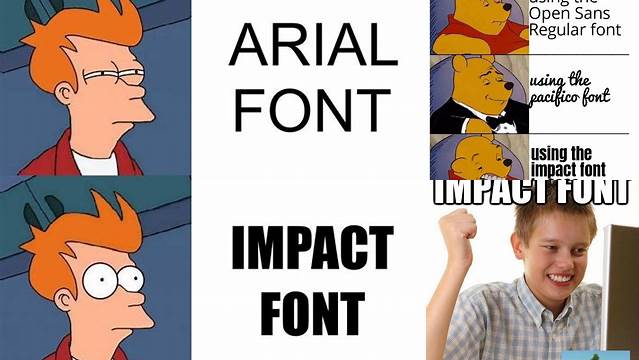
Impact Font Memes: The Enduring Legacy
The Rise of Impact Font in Memes
Alright, guys, let's dive into the wonderful world of Impact font memes! This font, with its bold, blocky letters, has become synonymous with internet humor. But how did it all start? The Impact font, initially designed for print, found its way onto the internet and quickly became the go-to choice for adding text to images. Its readability and visual punch made it perfect for conveying jokes and witty captions. Early meme creators loved it because it was readily available on most computers, making it easy to create and share content. Think of the classic Advice Animals – Overly Attached Girlfriend, Bad Luck Brian, Success Kid – all rocking the Impact font. The simplicity and clarity of the font allowed the humor to shine through, making it a staple in internet culture. Its widespread use also created a sense of familiarity and recognition, so whenever you saw that bold white text with the black outline, you knew you were about to see something funny. It's a testament to how a simple design choice can become deeply ingrained in our online experiences.
Why Impact Font Became a Meme Standard
So, why Impact font? What made it the king of meme fonts? Well, there are several reasons. First off, its bold and uppercase letters demand attention. In the fast-paced world of the internet, where content is constantly vying for your eyeballs, Impact cuts through the noise. It's like the font is shouting, "Hey, look at this! It's funny!" Plus, the ability to add a contrasting black outline made the text pop even more, ensuring readability on any image. The accessibility of Impact font also played a huge role. It came pre-installed on many operating systems, meaning anyone could easily create memes without needing special software or fonts. This democratic aspect of meme creation fueled its popularity. And let's not forget the cultural impact. As more and more memes used Impact, it became a visual shorthand for internet humor. Seeing Impact font instantly signaled to viewers that the image was meant to be funny, creating a sense of shared understanding and inside jokes. The font itself became part of the meme, an instantly recognizable symbol of internet culture. So, in essence, Impact font became a meme standard because it was bold, readable, accessible, and culturally significant.
The Evolution of Impact Font in Internet Culture
Over the years, the use of Impact font in memes has evolved, but its place in internet culture remains strong. Initially, it was used in a very straightforward way – top and bottom text on images. Classic, right? But as meme culture matured, so did the ways Impact font was used. People started experimenting with different layouts, adding more creative text placements, and even playing with the font's appearance. We saw Impact used ironically, in memes that subverted the typical format. We saw it paired with unexpected images to create surreal and absurd humor. There were even memes that made fun of the overuse of Impact font itself, which is pretty meta if you think about it! This evolution shows the dynamic nature of internet culture. Memes aren't static; they change and adapt, and the tools we use to create them, like Impact font, evolve along with them. Despite the rise of other fonts and meme formats, Impact continues to pop up, often used intentionally for its nostalgic value or to evoke a specific type of meme humor. It's a reminder of the early days of internet memes, a visual echo of a simpler time online. The enduring legacy of Impact font in memes is a testament to its adaptability and its deep connection to internet culture.
Impact Font vs. Other Meme Fonts
Let's be real, Impact font isn't the only font out there trying to make it in the meme world, but it definitely holds a special place in our hearts (and our funny bones). While Impact was the OG meme font, other contenders have entered the arena, each with its own vibe. Arial, for instance, tried to be the cool, modern alternative, but it never quite captured the same magic. Then there's Comic Sans, which, let's be honest, is more likely to elicit groans than giggles (unless it's being used ironically, of course). So, what makes Impact stand out? Well, it's all about that bold, no-nonsense look. It's direct, it's clear, and it gets the point across. Other fonts might be fancier or more stylish, but Impact is the font equivalent of a solid, reliable friend who always makes you laugh. It's also about the history. Impact is associated with the golden age of memes, a time when Advice Animals ruled the internet and LOLcats were the kings of comedy. That nostalgic connection gives Impact a certain cachet that other fonts just can't match. While other fonts might come and go, Impact remains a constant, a reminder of the roots of internet humor. It’s like the classic rock of meme fonts – always relevant, always recognizable, and always good for a laugh.
The Psychology Behind Impact Font's Meme Appeal
Ever wondered why Impact font just works for memes? There's actually some psychology behind it! Our brains are wired to notice things that stand out, and Impact, with its bold, uppercase letters, definitely grabs attention. It's like the font is shouting, "Pay attention to me!" This visual prominence is crucial in the fast-paced world of the internet, where content is constantly competing for our limited attention spans. The simplicity of Impact also plays a role. It's a clean, straightforward font that's easy to read, even at a glance. This is important because memes are often consumed quickly, and a font that's hard to decipher can kill the joke. But it's not just about readability; it's also about the emotional impact. The bold, assertive nature of Impact font conveys a sense of confidence and humor. It's like the font is saying, "This is funny, and I'm not afraid to show it!" This confidence can be contagious, making us more likely to find the meme funny. And let's not forget the power of association. Because Impact has been used in so many memes, it's become a visual cue for humor. When we see Impact font, we automatically associate it with funny content, which primes us to laugh. So, in a way, Impact font is like a visual trigger for humor, tapping into our psychological responses to make memes even funnier.
Creating Your Own Memes with Impact Font
Okay, guys, feeling inspired? Ready to create your own Impact font meme masterpieces? It's easier than you think! First, you'll need an image. It could be a photo, a screenshot, a drawing – anything that sparks your creativity. Next, you'll need a meme generator. There are tons of free online tools that make it super easy to add text to images. Just search for "meme generator" and you'll find plenty of options. Once you're in the generator, upload your image and select Impact font. This is where the magic happens! Now, think about your caption. The key is to be witty, concise, and relevant to the image. Classic meme captions often follow a simple formula: a setup at the top and a punchline at the bottom. But don't be afraid to experiment! Try different placements, different sizes, and even different colors (though white with a black outline is the traditional Impact font look). The most important thing is to make sure your text is readable and that it adds to the humor of the image. Remember, a great caption can transform an ordinary image into a viral sensation. And don't forget to share your creations! Post them on social media, send them to your friends, and spread the laughter. With Impact font and a little creativity, you can become a meme master in no time!
The Future of Impact Font in the Meme World
So, what's the future hold for Impact font in the meme world? Will it continue to reign supreme, or will it eventually fade into internet obscurity? Well, predicting the future of memes is a bit like predicting the weather – it's always subject to change! But there are a few factors that suggest Impact font will stick around for a while. First, there's the nostalgia factor. Impact is associated with the early days of internet memes, a time that many internet users look back on fondly. This nostalgia gives Impact a certain staying power, a kind of vintage cool that other fonts can't match. Second, there's the practicality factor. Impact is still one of the most readable fonts for memes, and in the fast-paced world of the internet, readability is key. Third, there's the irony factor. In recent years, we've seen a resurgence of Impact font in ironic memes, where the font is used deliberately to evoke a sense of outdated humor. This self-awareness keeps Impact relevant, even as meme culture evolves. Of course, the meme world is constantly changing, and new trends and formats emerge all the time. But Impact font has proven its resilience over the years, and it wouldn't be surprising to see it continue to pop up in memes for years to come. It's like the little black dress of meme fonts – always in style, always appropriate, and always ready to make you laugh.
The Controversies Surrounding Impact Font
Believe it or not, even something as seemingly innocuous as Impact font has faced its share of controversies. I know, right? Who knew a font could be so divisive? But the truth is, Impact's widespread use in memes has led to some debates about its artistic merit and its cultural impact. One of the main criticisms of Impact font is that it's overused and unoriginal. Some people argue that its ubiquity in memes has made it a cliché, a tired visual trope that lacks creativity. They believe that using Impact font is a sign of laziness, a way to create a meme without putting in any real effort. Another controversy surrounding Impact font is its association with certain types of humor. Because it's so closely linked to the classic Advice Animal memes, some people see Impact font as representing a particular style of internet humor that they find juvenile or outdated. They argue that using Impact font is like clinging to the past, a refusal to embrace new forms of online comedy. Of course, these controversies are largely a matter of personal opinion. There's no right or wrong answer when it comes to font choices in memes. But it's interesting to consider how something as simple as a font can spark so much debate and discussion. It just goes to show how deeply ingrained memes are in our culture, and how seriously we take our internet humor.
Impact Font and its Impact on Branding
While Impact font is most famously associated with memes, its bold and attention-grabbing nature has also made it a popular choice for branding and advertising. Think about it – a font that can make a meme go viral is bound to have some appeal in the world of marketing, right? Many companies have used Impact font in their logos, their slogans, and their advertising materials, hoping to capture some of that same visual punch. Its bold, uppercase letters convey a sense of strength and confidence, making it a good fit for brands that want to project a powerful image. The readability of Impact font is also a major selling point. In the cluttered landscape of advertising, a font that can be easily read at a glance is a valuable asset. But using Impact font for branding can also be a risky move. Because it's so closely associated with memes, there's a danger that it could make a brand seem unserious or even cheesy. Companies have to carefully consider their target audience and their overall brand image before deciding to use Impact font in their marketing. In some cases, the association with memes can be a positive thing, giving a brand a sense of playfulness and internet savvy. But in other cases, it could be a turnoff, making a brand seem out of touch or even unprofessional. It's a delicate balancing act, and it requires a keen understanding of both font psychology and internet culture.
Impact Font's Role in Internet History
Let's take a trip down memory lane, guys, and talk about Impact font's role in internet history. This font isn't just a set of letters; it's a symbol of a certain era of the internet, a time when memes were simpler, and the online world felt a little bit more wild and unpredictable. Impact font was there at the beginning of the meme explosion, gracing the captions of countless Advice Animals, rage comics, and image macros. It was the font of choice for LOLcats, for Overly Attached Girlfriend, for Bad Luck Brian – all the classic memes that defined early internet humor. Its ubiquity during this period cemented its place in internet history. Impact font became a visual shorthand for memes, a signal that you were about to see something funny. Seeing those bold, white letters with the black outline instantly transported you back to the golden age of internet humor. But Impact font's role in internet history goes beyond just memes. It was also a popular font for websites, forums, and online communities. Its readability and its bold presence made it a good choice for headings, titles, and other important text elements. Impact font was a part of the visual language of the early internet, a font that helped shape the online world we know today. So, when you see Impact font, remember that you're not just seeing a set of letters; you're seeing a piece of internet history.
The Use of Impact Font in Parody and Satire
One of the coolest things about Impact font is its versatility. It's not just for straightforward memes; it's also a fantastic tool for parody and satire. The font's inherent boldness and seriousness, combined with its association with internet humor, make it perfect for subverting expectations and creating ironic effects. Think about it: a serious message delivered in Impact font instantly becomes less serious, more playful, and often, downright hilarious. This is why Impact font is often used in memes that poke fun at serious topics, or that satirize the conventions of meme culture itself. We see Impact font used ironically, in memes that deliberately misinterpret images or that use nonsensical captions. We see it used self-referentially, in memes that comment on the overuse of Impact font itself. And we see it used in political satire, to lampoon politicians and their policies. The key to using Impact font effectively in parody and satire is to understand its cultural baggage. The font carries with it a history of internet humor, a set of associations that can be exploited for comedic effect. By playing with those associations, by subverting expectations, and by using Impact font in unexpected ways, you can create memes that are both funny and thought-provoking. It's a testament to the font's enduring power that it can be used for so many different purposes, from straightforward jokes to complex social commentary.
Impact Font in Different Languages and Cultures
Okay, let's talk about Impact font around the world! While it's undeniably a staple of English-language memes, its influence extends far beyond the English-speaking internet. Memes are a global phenomenon, and Impact font has traveled along with them, popping up in different languages and cultures around the world. Of course, the way Impact font is used can vary depending on the cultural context. In some cultures, the classic top-and-bottom text format is still the norm. In others, meme creators have adapted the format to suit their own languages and humor styles. For example, you might see Impact font used with different text alignments, different text sizes, or even different colors. The meaning of Impact font can also vary across cultures. While it's generally associated with humor, its specific connotations might differ. In some cultures, it might be seen as more playful and lighthearted. In others, it might carry a stronger sense of irony or sarcasm. The globalization of memes has led to some interesting cross-cultural exchanges. Memes that originate in one culture can be translated and adapted for use in others, often with Impact font as the common thread. This allows for a shared sense of humor and a sense of connection across linguistic and cultural boundaries. It's a reminder that even something as simple as a font can play a role in fostering global communication and understanding.
Impact Font and its Accessibility Considerations
Hey guys, let's have a chat about something super important: accessibility. When we're making memes, it's crucial to think about how accessible they are to everyone, including people with disabilities. And guess what? Impact font, while iconic, isn't always the most accessible choice. For folks with visual impairments, the bold, condensed nature of Impact can actually make it harder to read. The letters can blur together, especially at smaller sizes, which can be frustrating and even exclusionary. So, what can we do? Well, there are a few things to keep in mind. First, consider the size of the text. Make sure it's large enough to be easily read, even on smaller screens. Second, think about the contrast between the text and the background. White text with a black outline is a classic for Impact, but it might not be the best option for everyone. Experiment with different colors to find a combination that's easy on the eyes. Third, don't be afraid to explore other fonts. There are tons of great fonts out there that are more accessible than Impact, like Arial, Helvetica, and Verdana. The goal is to make your memes as inclusive as possible, so that everyone can enjoy them. Remember, humor is best when it's shared, and making our memes accessible is a way of sharing the laughter with everyone. It's about being mindful, being inclusive, and making the internet a more welcoming place for all.
The Debate on Impact Font's Readability
Okay, guys, let's dive into a bit of a debate here: How readable is Impact font, really? On the one hand, its bold, uppercase letters are designed to grab your attention. That's why it became such a hit in the meme world – it practically screams, "Look at me! I'm funny!" But on the other hand, that same boldness can sometimes make it a little tricky to read, especially in large blocks of text. The condensed nature of Impact means the letters are packed closely together, which can lead to eye strain if you're trying to read a long caption. And while the classic white-with-black-outline look does help the text stand out against busy backgrounds, it can also create a bit of a visual overload. So, what's the verdict? Well, it's kind of a mixed bag. For short, punchy captions, Impact is generally pretty readable. But for longer, more complex messages, it might not be the best choice. There are other fonts out there that are specifically designed for readability, like Arial, Helvetica, and Verdana. These fonts have a more open and airy feel, which makes them easier on the eyes. Ultimately, the readability of Impact font depends on how it's used. A few words in Impact can be eye-catching and effective, but a wall of Impact text can be a recipe for visual fatigue. So, when you're making memes, think about your message and choose a font that's both attention-grabbing and easy to read.
Impact Font and its Connection to Viral Content
Let's talk about the magic link between Impact font and viral content. There's no denying that this font has been a key ingredient in countless memes that have taken the internet by storm. But what's the secret sauce? Why does Impact font seem to have this knack for helping content go viral? Well, part of it is the font's boldness. It demands attention, and in the crowded online world, that's a huge advantage. Memes with Impact font are more likely to catch someone's eye as they're scrolling through their feeds. But it's not just about visibility; it's also about recognition. Impact font has become so closely associated with memes that it acts as a visual cue. When people see those bold, white letters with the black outline, they instantly know they're looking at a meme, and that primes them to laugh. And if a meme makes someone laugh, they're more likely to share it, which is the first step to going viral. The simplicity of Impact also plays a role. It's a clean, straightforward font that gets the message across without any fuss. This is important because viral content needs to be easily digestible. People aren't going to share something if they have to squint and strain to understand it. Of course, Impact font alone isn't enough to guarantee virality. The meme itself has to be funny, relatable, and shareable. But Impact font can definitely give a meme a boost, helping it stand out from the crowd and capture the attention of the internet.
The Irony of Using Impact Font in Modern Memes
Okay, guys, let's get meta for a second and talk about the irony of using Impact font in modern memes. Back in the day, Impact was the go-to font for pretty much every meme out there. It was the default, the standard, the king of meme fonts. But as meme culture has evolved, Impact has started to feel a little…dated. It's like wearing bell-bottoms to a disco – you might be rocking a classic look, but you're also kind of screaming, "I'm stuck in the past!" And that's where the irony comes in. In modern memes, using Impact font can be a deliberate choice to evoke a sense of nostalgia, to pay homage to the early days of internet humor. It's like saying, "Hey, I remember those old-school memes!" But it can also be a way of poking fun at the clichés of meme culture. Using Impact font in a meme that's intentionally bad or cringey is like a wink to the audience. It's saying, "I know this is terrible, but that's the point!" This ironic use of Impact font is a testament to the self-awareness of meme culture. Memes aren't just about making jokes; they're also about commenting on the history and evolution of the internet itself. And Impact font, as a symbol of that history, has become a powerful tool for irony and satire. So, the next time you see Impact font in a meme, ask yourself: Is this a genuine throwback, or is it a knowing nod to the past? The answer might just make you laugh.
Impact Font and its Use in Image Macros
Let's break down a crucial connection: Impact font and image macros. If memes are the bread and butter of the internet, then image macros are the slices that make up the loaf. These simple yet effective creations – an image paired with text – have been a cornerstone of online humor for ages, and Impact font has been right there in the mix since day one. Why? Well, Impact's bold, clear style is perfect for conveying a quick, punchy message. Its uppercase letters and thick strokes grab your attention, making sure the text stands out even against a busy background. Plus, the classic white-with-black-outline look ensures readability, which is essential when you've only got a few seconds to land a joke. Think about the quintessential image macros: Advice Animals, Disaster Girl, Distracted Boyfriend. What do they all have in common? That's right, Impact font! It's become so ingrained in the image macro aesthetic that seeing it instantly triggers a sense of familiarity and humor. It's like a visual shorthand for "This is going to be funny." But Impact's role in image macros goes beyond just aesthetics. It's also about accessibility. The font is widely available, meaning anyone with a computer and an internet connection can create their own memes. This democratization of meme creation has been a huge factor in the popularity of image macros, and Impact font has been a key enabler. So, the next time you chuckle at a perfectly crafted image macro, take a moment to appreciate the unsung hero: Impact font.
Impact Font and its Popularity Among Gen Z
Alright, let's talk about the cool kids on the block: Gen Z. These digital natives have grown up in a world saturated with memes, so you might think they'd be over Impact font, right? Surprisingly, Impact is still kicking around in Gen Z meme culture, but it's often used in a very specific way: ironically. Gen Z has a knack for taking old trends and twisting them into something new and hilarious. They'll resurrect a vintage meme format, slap on some Impact font, and suddenly it's funny again – not because it's genuinely hilarious, but because it's so outdated that it's hilarious. This ironic use of Impact is a form of meta-commentary on meme culture itself. It's like Gen Z is saying, "We know this is old-school, but we're using it on purpose." It's a way of signaling their awareness of meme history while also poking fun at its clichés. But Impact's popularity among Gen Z isn't just about irony. There's also a sense of nostalgia at play. Even though they weren't around for the early days of meme culture, Gen Z has grown up seeing Impact font memes online. It's become a familiar visual element, a reminder of the internet's quirky past. So, while Gen Z might not be using Impact font in the same way that previous generations did, it's still a relevant part of their online world. They've found a way to make it their own, to repurpose it for a new era of meme humor.
The Use of Impact Font in Political Memes
Let's get into the world of politics, guys! You might not think Impact font has much to do with serious stuff like elections and policy debates, but you'd be surprised. In the age of the internet, political memes have become a powerful tool for spreading messages, influencing opinions, and even shaping the course of elections. And guess what? Impact font is often right there in the thick of it. The font's bold, attention-grabbing nature makes it perfect for political memes, which need to cut through the noise and grab people's attention. A witty slogan or a sharp critique written in Impact font can be incredibly effective at conveying a political message. But the use of Impact font in political memes is a bit of a double-edged sword. On the one hand, it can make a meme more shareable and memorable. On the other hand, it can also make it seem less serious or credible. The association with internet humor can undermine the gravity of the message, especially if the meme is dealing with a sensitive or controversial topic. So, political meme creators have to tread carefully. They need to balance the attention-grabbing power of Impact font with the need to maintain a certain level of credibility. Sometimes, the ironic use of Impact font can be effective in political memes, especially when the goal is to satirize or criticize a political opponent. But in other cases, a more serious or professional-looking font might be a better choice. It all depends on the message and the target audience.
Impact Font and its Association with Dank Memes
Alright, meme aficionados, let's dive into the deep end of the internet pool and talk about dank memes. These are the memes that are so weird, so absurd, and so out-there that they're… well, they're dank. And you know what often accompanies a truly dank meme? That's right, Impact font. The association between Impact and dank memes is a bit like a secret handshake in the online world. If you see Impact font in a meme that's deliberately nonsensical or surreal, you know you've stumbled into dank territory. But why this connection? Well, dank memes are all about pushing boundaries and subverting expectations. They're about taking the familiar and twisting it into something bizarre and unexpected. And Impact font, with its slightly outdated and overused vibe, is the perfect tool for this kind of subversion. Using Impact font in a dank meme is like adding a layer of irony and self-awareness. It's a way of signaling that the meme is not to be taken seriously, that it's all part of the joke. The boldness of Impact also fits the over-the-top nature of dank memes. These memes are often loud, visually chaotic, and intentionally jarring, and Impact font fits right in with that aesthetic. It's like the visual equivalent of shouting a nonsense phrase at the top of your lungs. So, if you're looking to create a truly dank meme, don't forget the Impact font. It's the key ingredient in the recipe for internet absurdity.
The Use of Impact Font in Business and Marketing Memes
Let's talk shop, guys! Can Impact font and memes actually have a place in the world of business and marketing? Surprisingly, the answer is yes, but it's a delicate dance. When used correctly, memes can be a fantastic way to connect with your audience, build brand awareness, and even drive sales. And Impact font, with its instantly recognizable style, can play a role in that. The key is to use memes authentically and strategically. Nobody wants to see a company trying too hard to be hip or funny. If a meme feels forced or out of touch, it's going to backfire. But if a business can create memes that are genuinely funny, relatable, and relevant to their brand, they can tap into a powerful marketing tool. Impact font can be particularly effective in business and marketing memes that are self-aware or ironic. Using Impact in a meme that pokes fun at corporate culture or that satirizes the clichés of advertising can be a great way to show your audience that you don't take yourself too seriously. But again, it's all about balance. You don't want to undermine your brand's credibility by being too silly or unprofessional. So, if you're thinking about using memes in your business or marketing efforts, do your research, understand your audience, and be sure to use Impact font (or any font) thoughtfully. A well-crafted meme can be a game-changer, but a poorly executed one can be a disaster.
Impact Font Alternatives for Modern Meme Creation
Okay, let's face it, guys. As much as we love Impact font for its nostalgic value, there are times when it just feels a little…old-fashioned. The meme world is constantly evolving, and sometimes you need a font that's a bit more fresh and modern. So, what are some good Impact font alternatives for modern meme creation? Well, there are tons of great options out there, depending on the vibe you're going for. If you want something bold and attention-grabbing like Impact, but with a slightly cleaner and more contemporary feel, you might try Bebas Neue or Montserrat. These fonts have a similar visual impact, but they feel a bit less dated. If you're looking for something more playful and quirky, you could try something like Luckiest Guy or Comic Neue (a more refined version of Comic Sans, believe it or not!). These fonts are great for memes that are lighthearted and fun. And if you want a font that's super clean and readable, you can't go wrong with Arial, Helvetica, or Open Sans. These fonts are versatile and work well in a variety of meme formats. The key is to experiment and find a font that fits your style and your message. Don't be afraid to step outside the Impact font box and try something new. The meme world is all about creativity and innovation, so have fun with it! Ultimately, the best font for your meme is the one that helps you get your joke across in the most effective way possible.
The Technical Specifications of Impact Font
Let's get a little techy for a minute, guys, and talk about the nitty-gritty details of Impact font. You know, the stuff that's happening behind the scenes that makes this font tick. Impact is what's called a sans-serif font, which means it doesn't have those little decorative strokes (called serifs) at the ends of the letters. This gives it a clean and modern look, which is one of the reasons it became so popular in the digital world. It was designed by Geoffrey Lee in 1965 and released by the Stephenson Blake type foundry. It was specifically designed to be impactful (hence the name!) and highly readable, even in condensed spaces. This makes it perfect for headlines, posters, and, of course, memes. The font's technical specifications also contribute to its bold appearance. The letters are tall and narrow, with a high x-height (the height of the lowercase letters). This gives the font a strong vertical emphasis and makes it stand out on the page or screen. Impact is also a relatively simple font in terms of its design. It doesn't have a lot of fancy flourishes or embellishments. This simplicity is part of its appeal, as it allows the message to take center stage. While Impact has been a popular font for decades, it's worth noting that it's not always the most technically advanced font. It's a bit of an older design, and it doesn't have some of the features that are found in more modern fonts, such as support for a wide range of languages or advanced typographic features. But for its intended purpose – making a bold statement – Impact is a classic choice that still holds up today.
Impact Font and the Copyright Implications
Okay, guys, let's talk about something a little less funny but still super important: copyright. When we're using Impact font in our memes, it's good to have a basic understanding of the legal stuff, just to make sure we're not accidentally stepping on anyone's toes. The first thing to know is that fonts themselves are typically protected by copyright. This means that the creator of the font has the exclusive right to copy, distribute, and modify it. However, most fonts come with a license that allows you to use them for certain purposes, such as creating documents, websites, and graphics. The Impact font, for example, comes pre-installed on many computers, and the license that comes with your operating system usually allows you to use the font for personal and commercial projects. But here's where it gets a little tricky: the license might have some limitations. For example, some licenses might restrict you from embedding the font in a document or using it in a logo without purchasing a separate license. So, it's always a good idea to check the license agreement for the specific font you're using, just to be safe. In the context of memes, the copyright implications are usually pretty straightforward. As long as you're using Impact font in a typical meme format (text overlaid on an image), you're almost certainly within the bounds of the license. But if you're planning to use Impact font in a commercial project, it's always best to do your due diligence and make sure you have the necessary rights. Nobody wants a copyright lawsuit to ruin their meme game!
The Global Popularity of Impact Font in Memes
Let's take a trip around the world, guys, and see how Impact font is making its mark on global meme culture. You might think of Impact as a Western internet staple, but its influence stretches far beyond English-speaking corners of the web. Memes are a universal language, and Impact font has become a recognizable part of that language in many different countries and cultures. Of course, the way Impact is used can vary depending on the cultural context. In some regions, the classic top-and-bottom text format is still the dominant style. In others, meme creators are experimenting with different layouts, text placements, and even font colors. But the core essence of Impact – its bold, attention-grabbing nature – translates well across cultural boundaries. One of the interesting things about Impact's global popularity is how it facilitates cross-cultural meme sharing. Memes that originate in one country can easily be adapted for use in another, with Impact font serving as a common thread. This allows for a shared sense of humor and a sense of connection between internet users from all over the world. But it's also important to be mindful of cultural differences when sharing memes across borders. What's funny in one culture might not be funny in another, and a meme that's intended to be humorous could potentially be misinterpreted or even offensive. So, while Impact font helps bridge cultural gaps in the meme world, it's crucial to be sensitive and respectful of different perspectives. Ultimately, the global popularity of Impact font is a testament to the power of memes to connect people from all walks of life.
How Impact Font Contributes to Meme Recognition
Let's talk about something super important in the meme world: recognition. How do you make your meme stand out from the millions of others floating around online? Well, one key ingredient is a strong visual identity, and that's where Impact font comes in. This font has become so closely associated with memes that it acts like a visual bat-signal for internet humor. When people see those bold, white letters with the black outline, their brains instantly go, "Aha! This is a meme!" It's like a Pavlovian response – Impact font triggers a feeling of anticipation, a sense that something funny is about to happen. This recognition factor is a huge advantage for meme creators. If you use Impact font, you're instantly signaling to your audience that your content is part of the meme universe. You're tapping into a shared visual language that helps your meme connect with people on a deeper level. But Impact's contribution to meme recognition goes beyond just visual cues. The font also carries with it a history of internet humor. It's associated with the classic memes that shaped online culture, from Advice Animals to rage comics. So, using Impact font can also evoke a sense of nostalgia, a feeling of connection to the early days of the internet. This combination of visual recognition and historical association makes Impact font a powerful tool for meme creators. It helps your meme stand out, it signals its comedic intent, and it connects with your audience on a personal level. It's no wonder Impact has become such a beloved and enduring part of meme culture.
Impact Font and the Art of Meme Typography
Okay, guys, let's get a little artsy and talk about meme typography. I know, it might sound a bit pretentious, but there's actually a real art to choosing and using fonts effectively in memes. And guess what? Impact font, despite its simplicity, has a lot to teach us about the principles of good meme typography. The first thing to consider is readability. A meme can be the funniest thing in the world, but if the text is hard to read, the joke is going to fall flat. Impact font excels in this area because its bold, uppercase letters and contrasting outline make it easy to read even on busy backgrounds. But readability is just the starting point. The font you choose also needs to match the tone and style of your meme. Impact font, with its strong and assertive personality, is a good fit for memes that are bold, direct, and humorous. But it might not be the best choice for memes that are more subtle, ironic, or emotional. In those cases, you might want to explore other font options. The placement and size of the text are also crucial elements of meme typography. Impact font is often used in the classic top-and-bottom format, but you can experiment with different layouts to create different effects. You can also play with the size of the text to emphasize certain words or phrases. Ultimately, the art of meme typography is about finding the perfect balance between readability, style, and visual impact. And Impact font, with its bold simplicity and iconic status, is a great tool to have in your meme typography toolkit.
Impact Font and its Use in Mockery and Sarcasm
Alright, let's get a little sassy, guys, and talk about how Impact font can be used to deliver some serious mockery and sarcasm. This font isn't just for straightforward jokes; it's also a master of the subtle art of internet shade. Think about it: Impact font's bold, no-nonsense style can be incredibly effective at conveying sarcasm. It's like the font is saying, "Oh, really? You think that's a good idea?" The key is the contrast between the serious appearance of the font and the sarcastic tone of the message. This juxtaposition creates a sense of irony that can be both hilarious and cutting. Impact font is also great for mocking people or situations. Its over-the-top boldness can amplify the absurdity of a situation, making it even funnier. It's like the font is saying, "Can you believe this is happening?" But the use of Impact font in mockery and sarcasm can be a delicate balancing act. If you're too heavy-handed, the sarcasm can come across as mean-spirited or aggressive. The goal is to be witty and ironic, not just plain nasty. So, it's important to use Impact font thoughtfully and to make sure your sarcasm is aimed at the right target. Sometimes, the best mockery is self-deprecating. Using Impact font to make fun of yourself or your own quirks can be a great way to connect with your audience and show that you don't take yourself too seriously. Ultimately, the art of using Impact font for mockery and sarcasm is about finding the perfect blend of boldness, wit, and irony. And when you get it right, the results can be comedic gold.
Impact Font: A Timeless Classic or a Relic of the Past?
Okay, guys, let's get philosophical for a moment. Is Impact font a timeless classic, or is it just a relic of the past? Is it destined to live on as an icon of internet culture, or will it eventually fade into meme obscurity? The truth is, there's no easy answer. Impact font definitely has a strong claim to classic status. It's been a fixture of meme culture for over a decade, and it's instantly recognizable to anyone who's spent time on the internet. It's like the little black dress of meme fonts – always in style, always appropriate (well, almost always!), and always ready to make you laugh. But meme culture is constantly evolving, and new trends and formats are emerging all the time. What's popular today might be passé tomorrow. And there's no denying that Impact font can sometimes feel a little…dated. It's associated with the early days of internet humor, and some people might see it as a bit of a cliché. However, the ironic use of Impact font in modern memes suggests that it still has some life left in it. The font's ability to be both sincere and sarcastic, both classic and contemporary, is a testament to its versatility and enduring appeal. So, while the future of Impact font is uncertain, it's safe to say that it's earned its place in internet history. Whether it's a timeless classic or a relic of the past, Impact font will always be remembered as the font that helped shape the meme world we know and love.